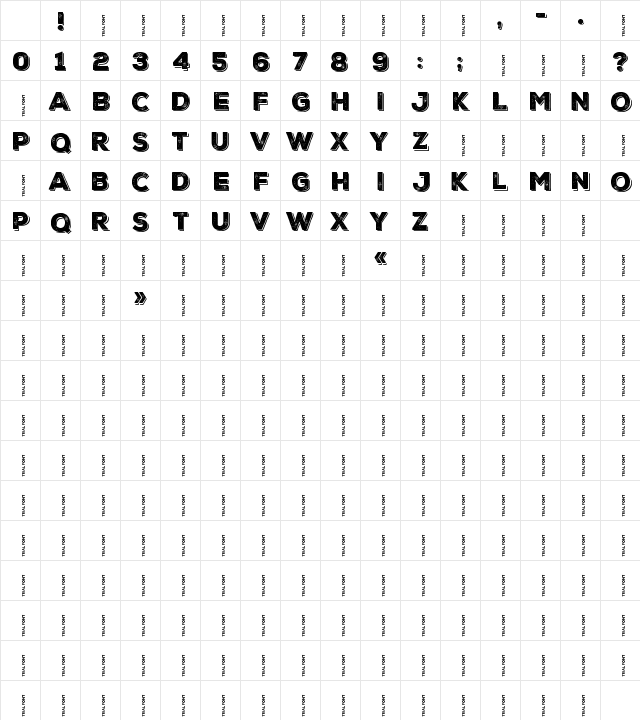
Complete Nexa Rust Sans-Trial Black Shadow 1 Regular glyph index. Displaying only characters natively supported by Nexa Rust Sans-Trial Black Shadow 1 Regular font.
Nexa Rust Sans-Trial Black Shadow 1 is built around its visual character rather than neutral utility - its distinctive forms are designed to make an impression at display sizes.
Font Pairing: Pair with a clean neutral sans-serif for body copy to let Nexa Rust Sans-Trial Black Shadow 1's character lead without overwhelming the composition.
Pro Tip: Use Nexa Rust Sans-Trial Black Shadow 1 exclusively at display sizes - it was designed to be seen, not read at length. Let a neutral companion handle body copy.